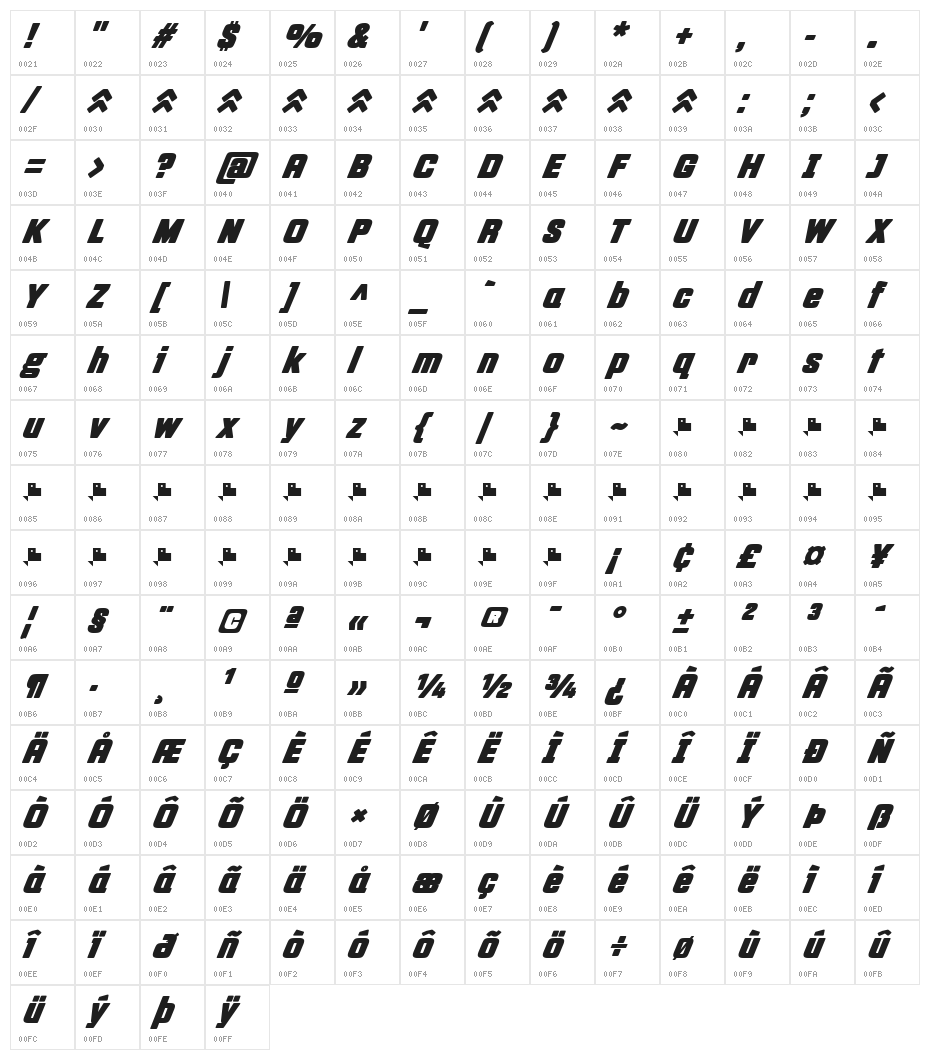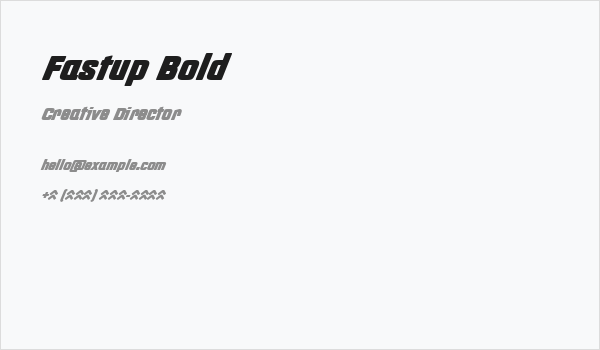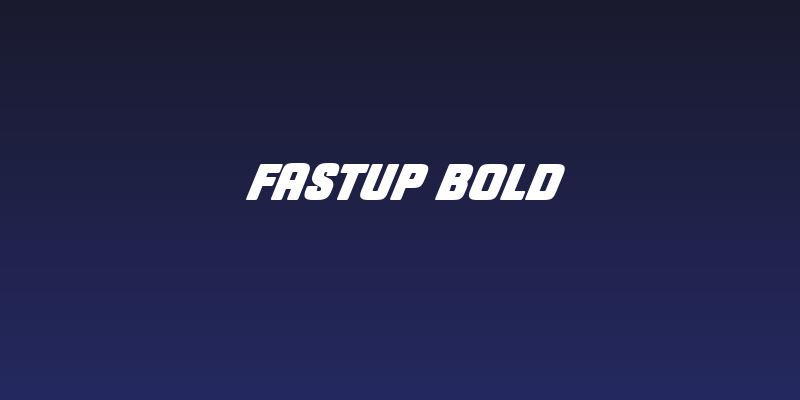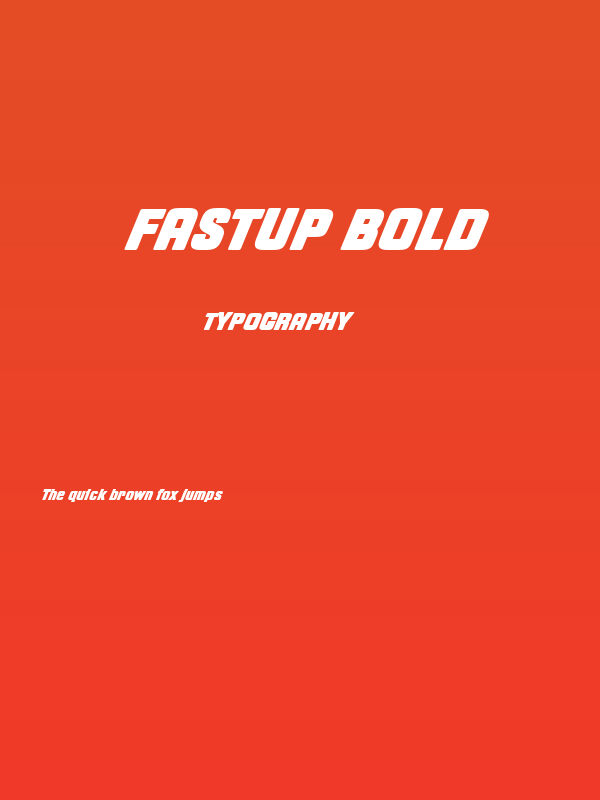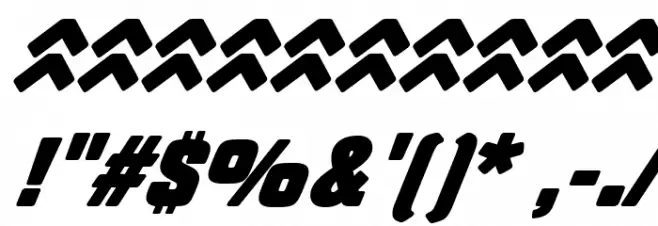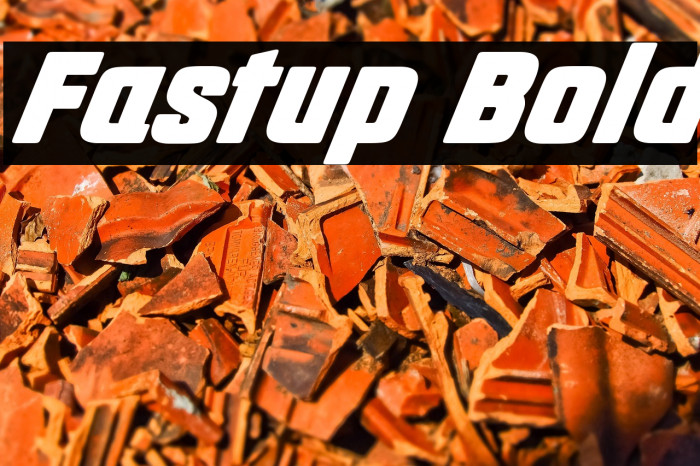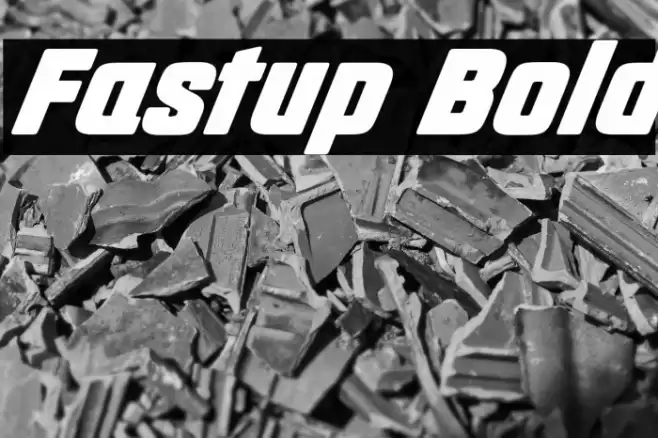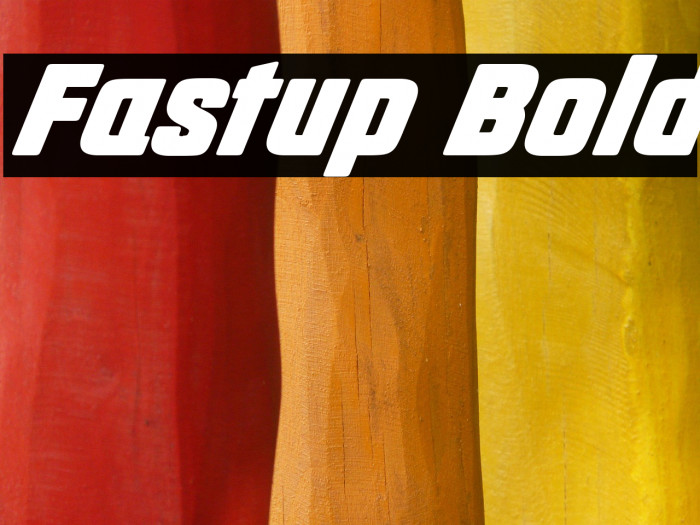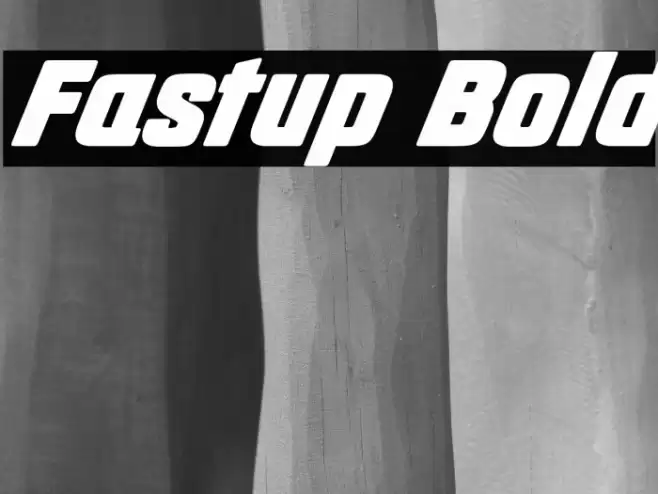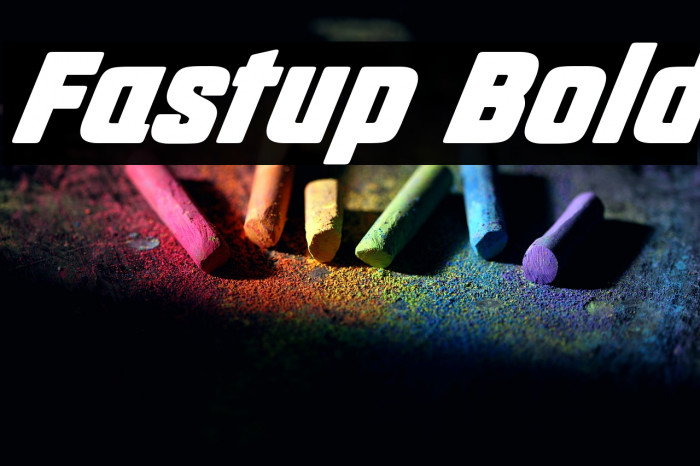
Fastup Bold Font
Fastup Regular and Small Caps is available in two weights (Regular and Bold), geometric design fonts, with a rounded finish on the vertices that provides warmth, with short ascenders and descenders offers a more compact set of letters, the 22° inclination
| Projets proposés | Ideal for sports branding, dynamic posters, and modern advertising campaigns. |